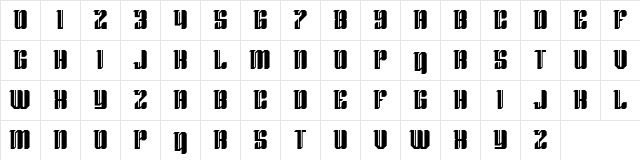
Blackletter 97 Regular
| Designer | Damien Gossethttps://www.sweeep.fr |
Design Context for Blackletter 97 Typeface
Blackletter 97 draws on the rich tradition of blackletter calligraphy, with dense, angular strokes that evoke medieval manuscripts and old-world craftsmanship.
Well-suited to band logos, craft beer branding, tattoo lettering, and heritage-themed identities.
Font Pairing: Pair with a clean neutral sans-serif for body copy to let Blackletter 97's character lead without overwhelming the composition.
Pro Tip: Use Blackletter 97 sparingly at large sizes. Even a single word set in blackletter can define the visual register of an entire design.